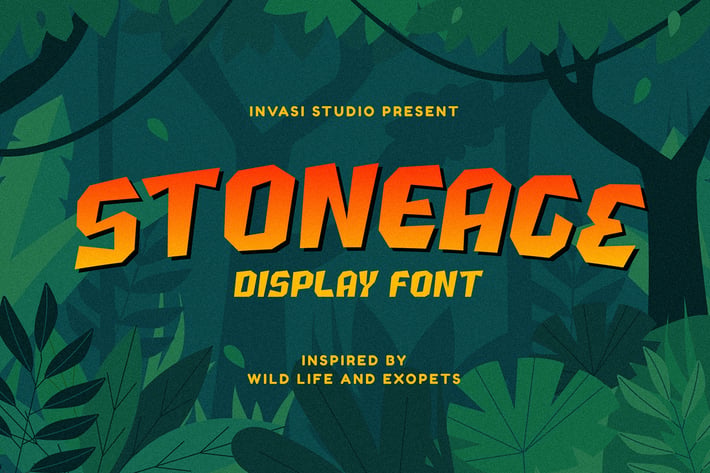
Stoneage | Display Font
Stoneage font is a fun, friendly, and hand-written style Inspired by wildlife and exopets. It can easily be matched to an incredibly large set of projects, as it has the potential to elevate any creation! This font is perfect for headings, flyers, greeting cards, product packaging, book cover, printed quotes, logotype, apparel design, album covers.
- Stylistic Alternates